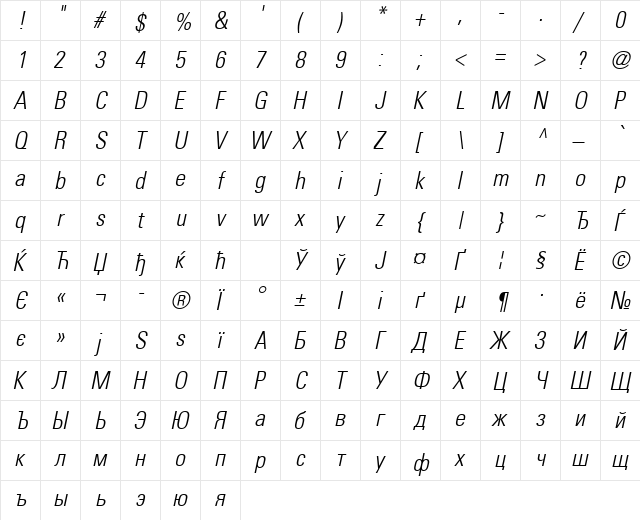
PartnerCondensedLight Oblique Font Preview
Design Context for PartnerCondensedLight Typeface
PartnerCondensedLight offers clean, dependable letterforms without strong stylistic allegiance, making it a practical choice for designers who need flexibility. The slanted form adds forward momentum and visual energy. The delicate stroke weight brings airiness and refinement to layouts. Its narrow stance lets it pack a punch even in space-constrained designs.
Pro Tip: Use PartnerCondensedLight for emphasis, pull quotes, and subheadings where its slanted energy can add rhythm to the layout.